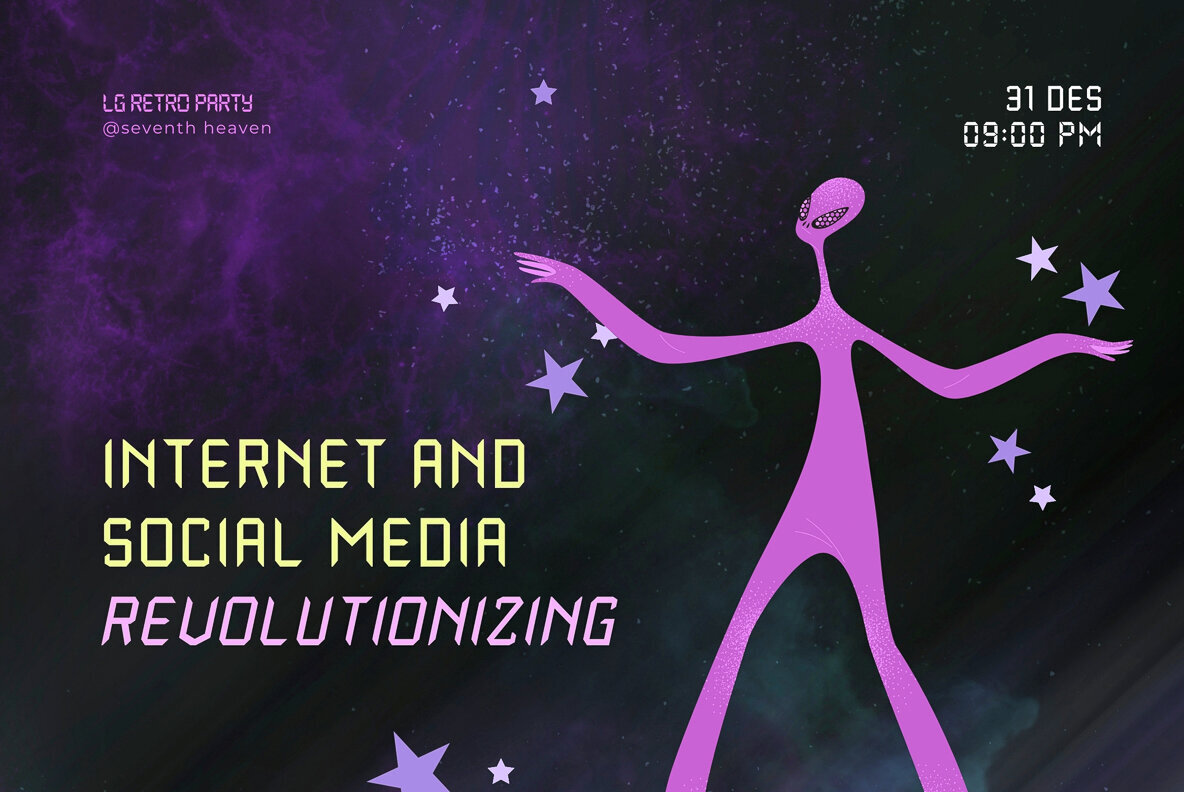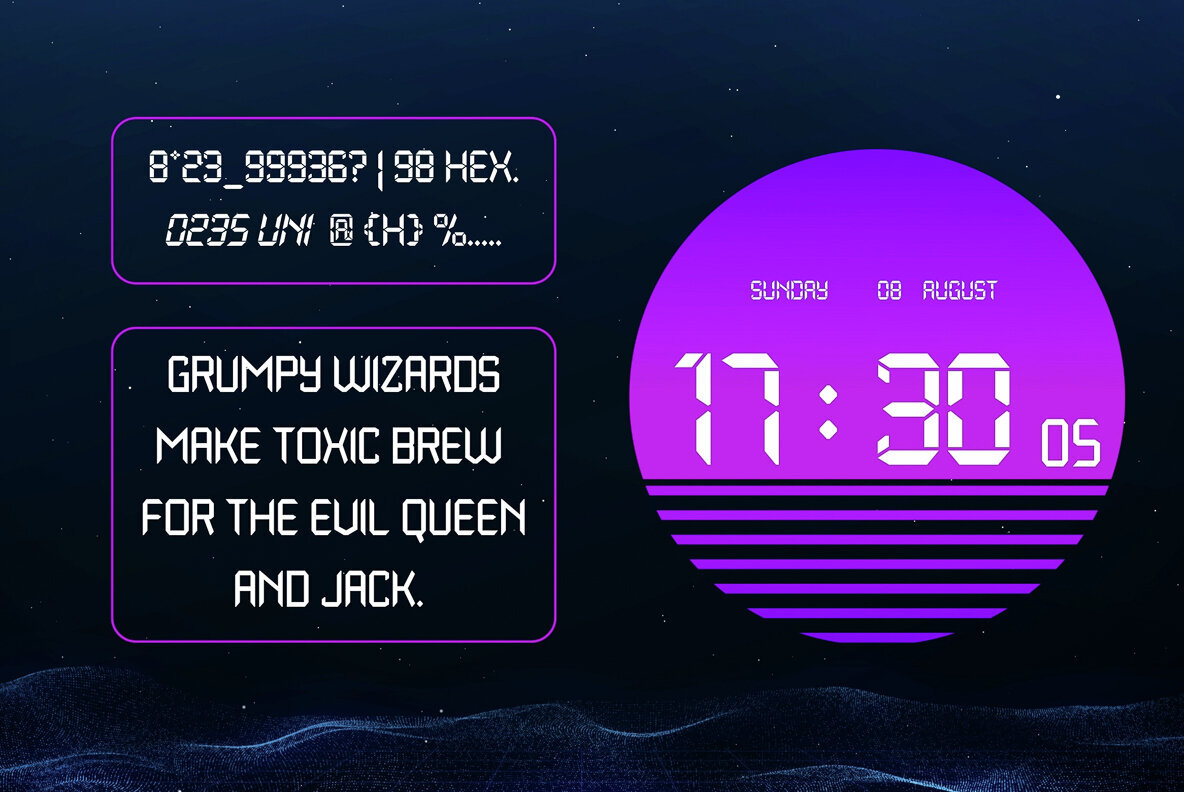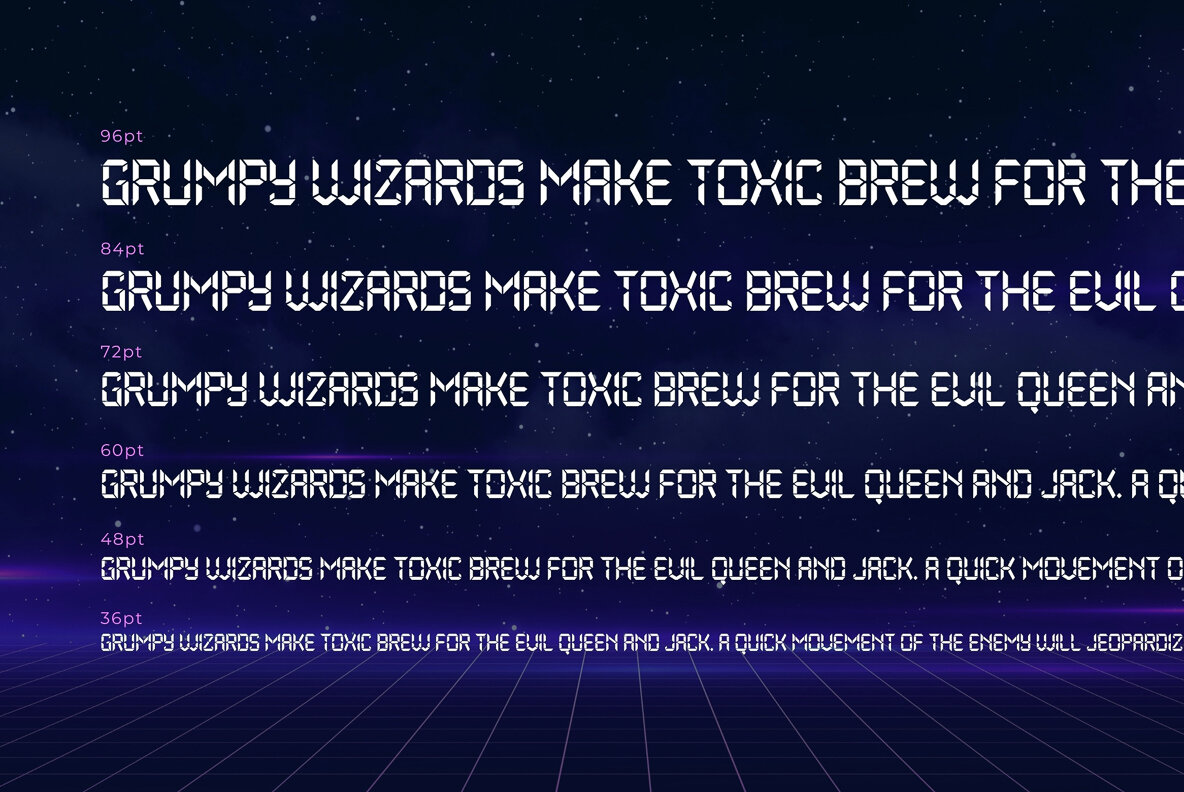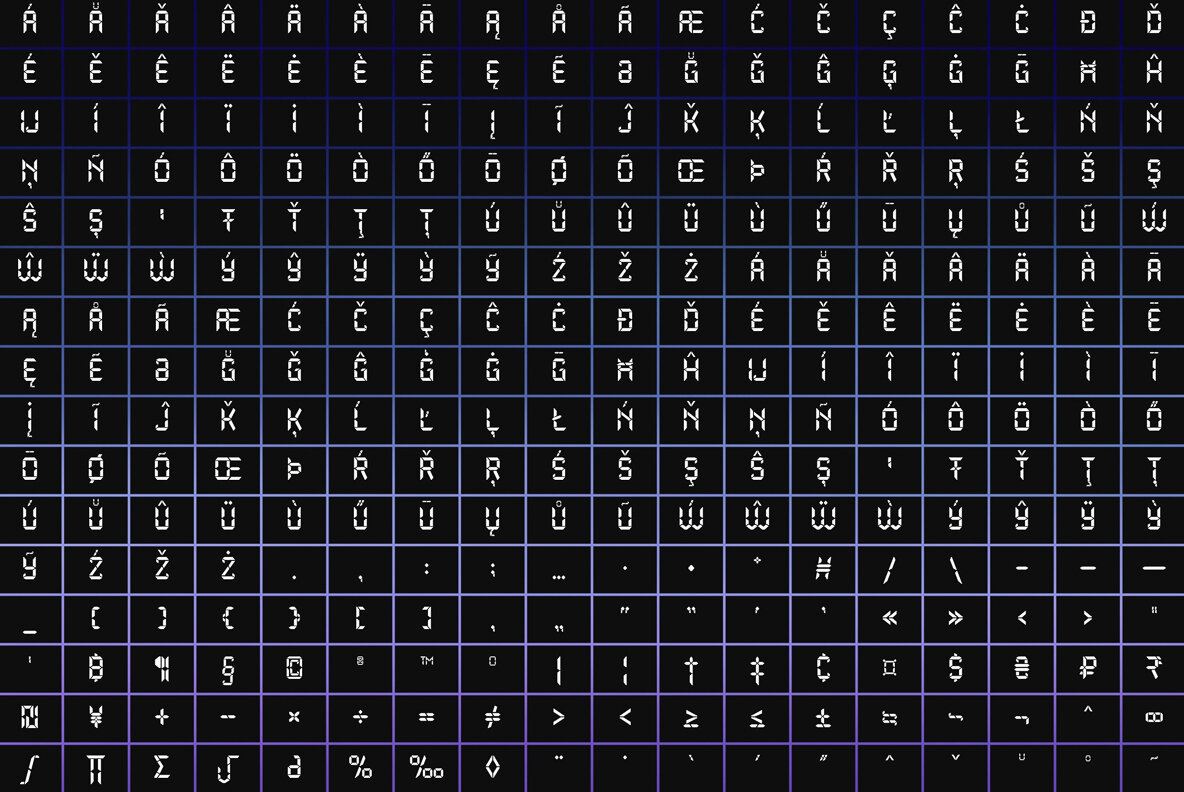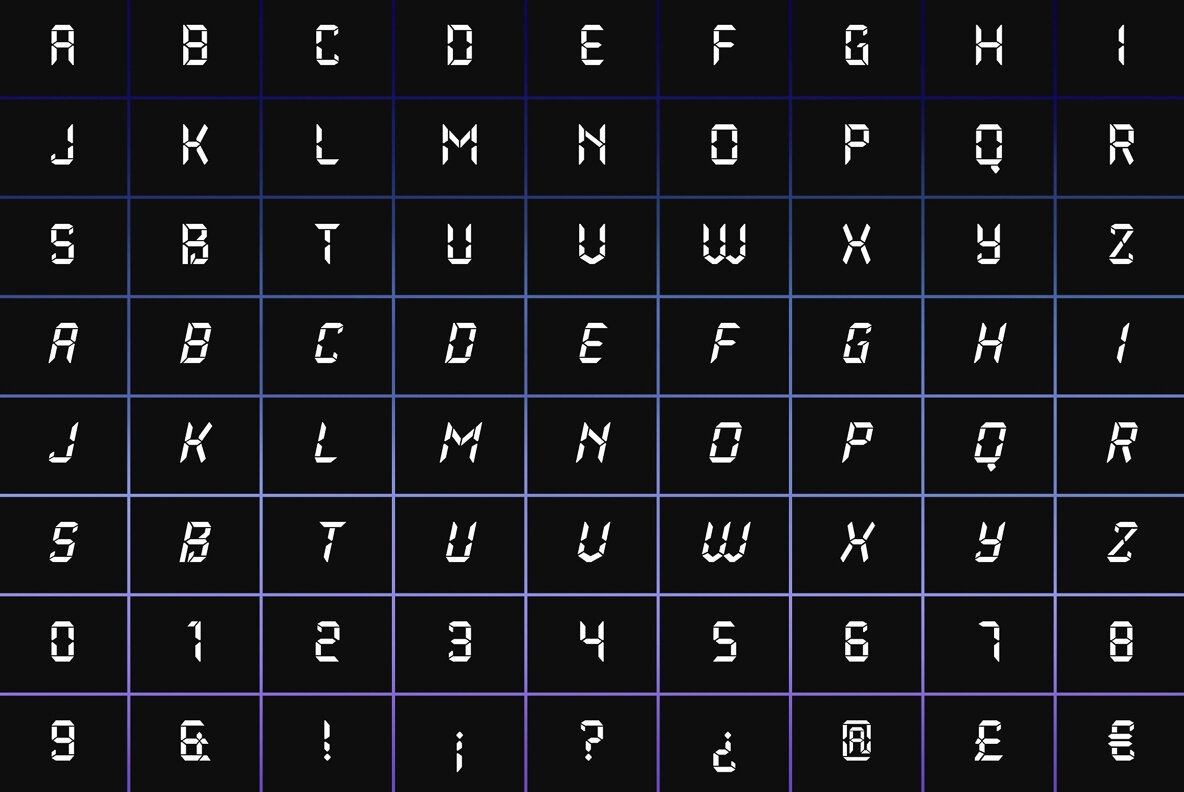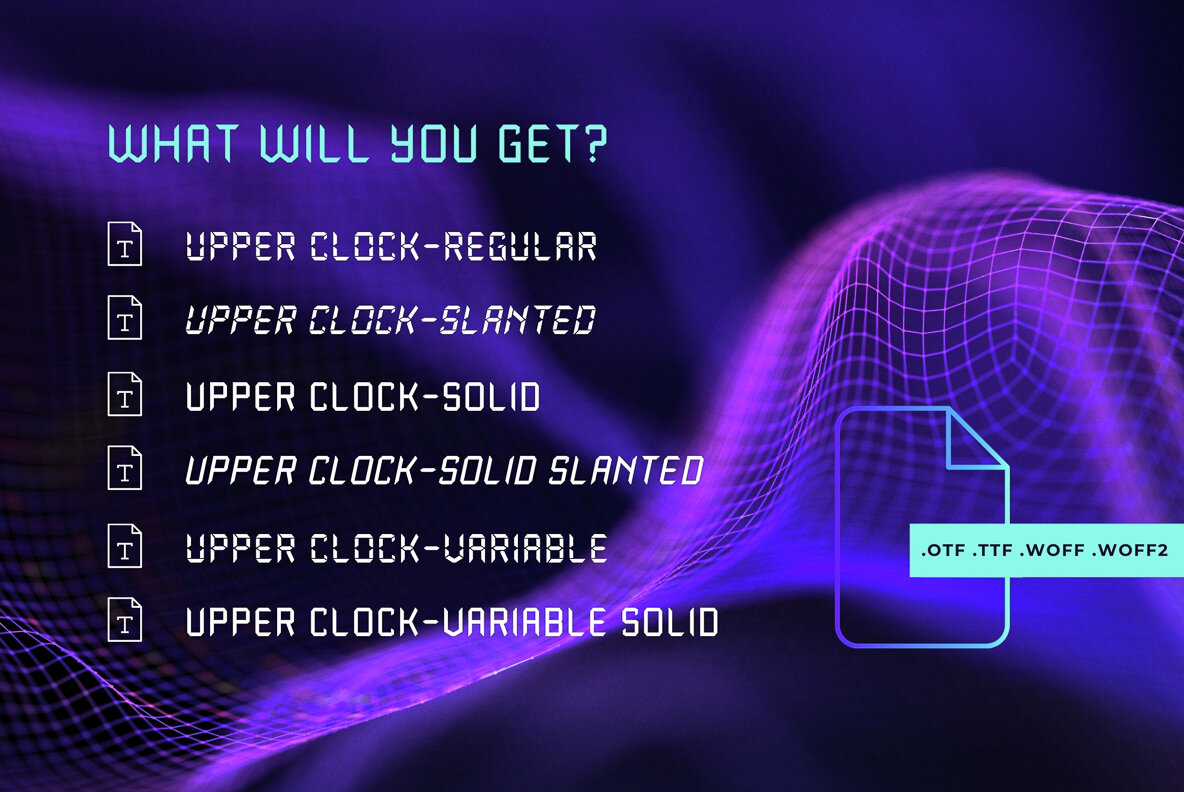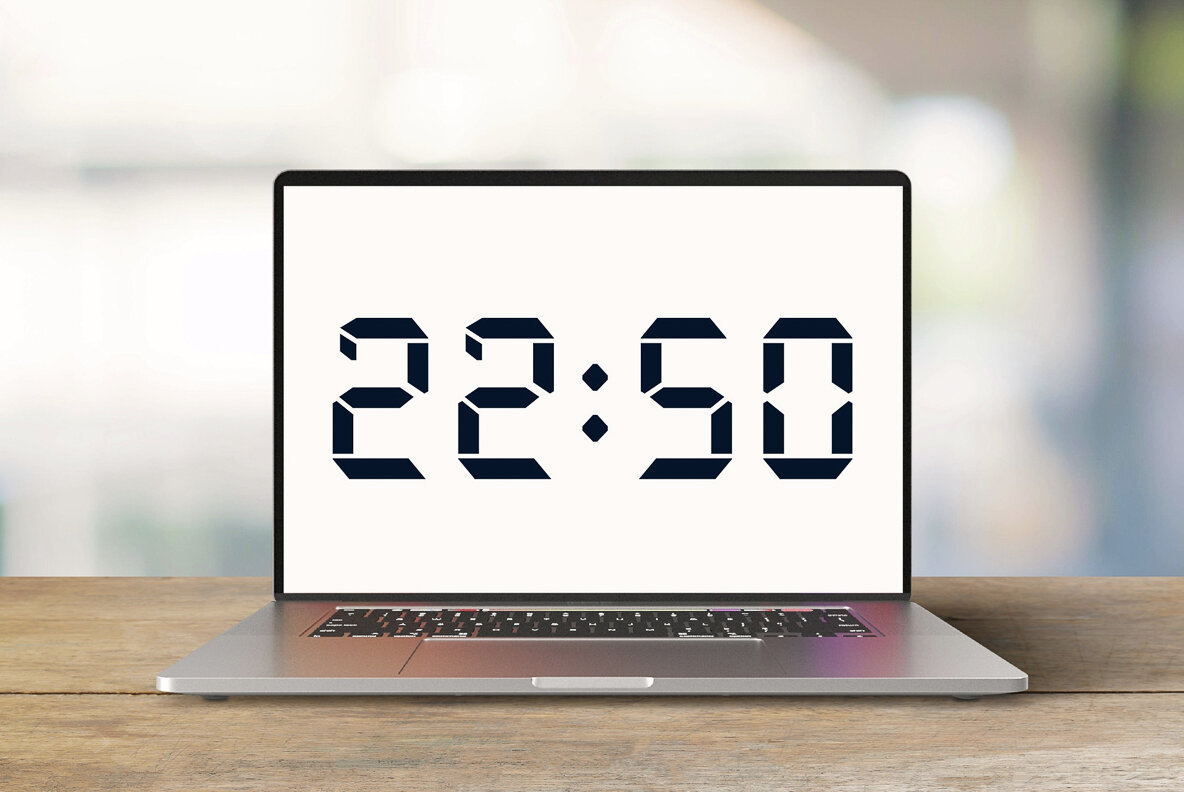
Upper Clock Font
Introducing Upper Clock Typeface, your ticket to a world of typographic innovation, drawing inspiration from the sleek design of the ETCH Clock. Prepare to explore a myriad of creative possibilities for your Display Text with this cutting-edge typeface. Tired of mundane, uninspiring fonts that lack personality and flair? Upper Clock Typeface is here to infuse your digital designs with the vivacity of Retro Flat, the whimsy of Memphis, and the evocative nostalgia of Modern Nostalgia. You'll discover: Comprehensive multi-language support, including Western European, Central European, South Eastern European, South American, Oceanian, and even Esperanto. Upper Clock isn't merely a typeface; it's your ultimate solution to typographic challenges. This versatile tool is your gateway to crafting visually stunning, one-of-a-kind designs within the realm of Display Text. As you implement Upper Clock Typeface, watch in awe as your typographic dilemmas seamlessly transform into relics of the past. Take your design endeavours to new heights with Upper Clock Typeface today!